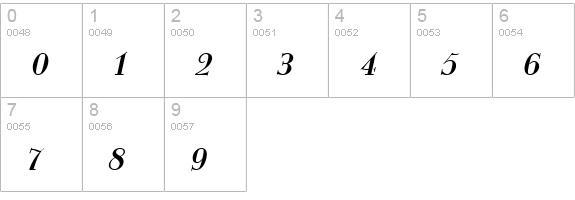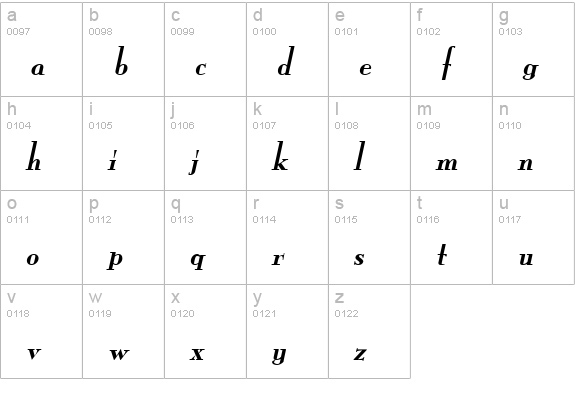
Monarch Italic Font Details
Monarch Italic is a distinctive, italic variant in the Monarch typeface family \xE2\x80\x94 well suited to design and typography projects.
Monarch Italic font exudes elegance and sophistication with its graceful curves and stylish letterforms. This italic typeface adds a touch of sophistication to any design project, whether it be for branding, editorial design, or creative projects. The slanted angles and fluid strokes of Monarch Italic create a sense of movement and modernity, making it a versatile choice for both print and digital applications. What's even better is that Monarch Italic is available for free download at FontsMarket.com. This means that you can easily access this beautiful font and incorporate it into your projects without any cost. Don't miss out on the opportunity to enhance your designs with the timeless beauty of Monarch Italic font. Download it today and elevate your typography game!